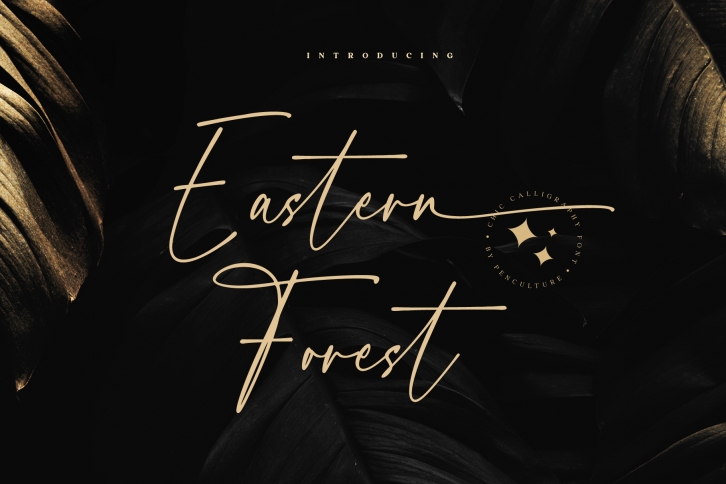
Eastern Forest is a modern chic calligraphy font with lovely stroke, this font come with full of uppercase and lowercase, number and punctuation, ligature and alternate that perfect for any kind of design project.